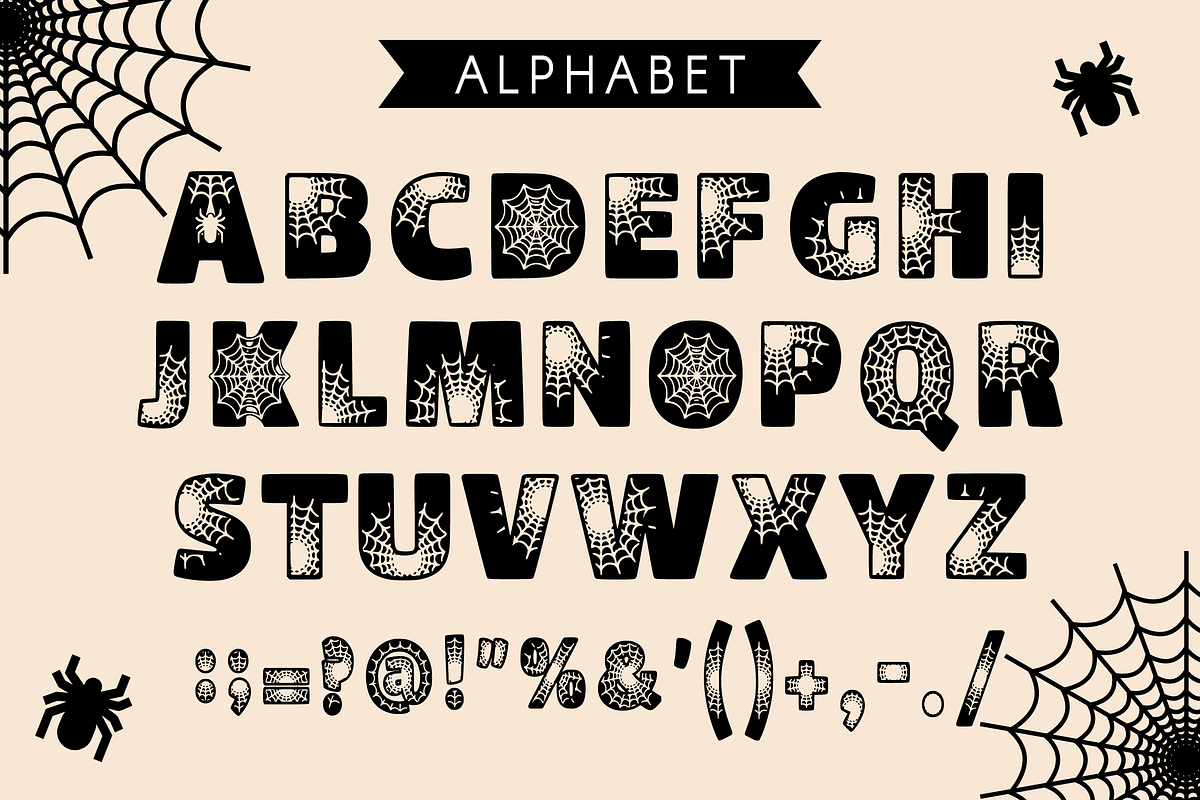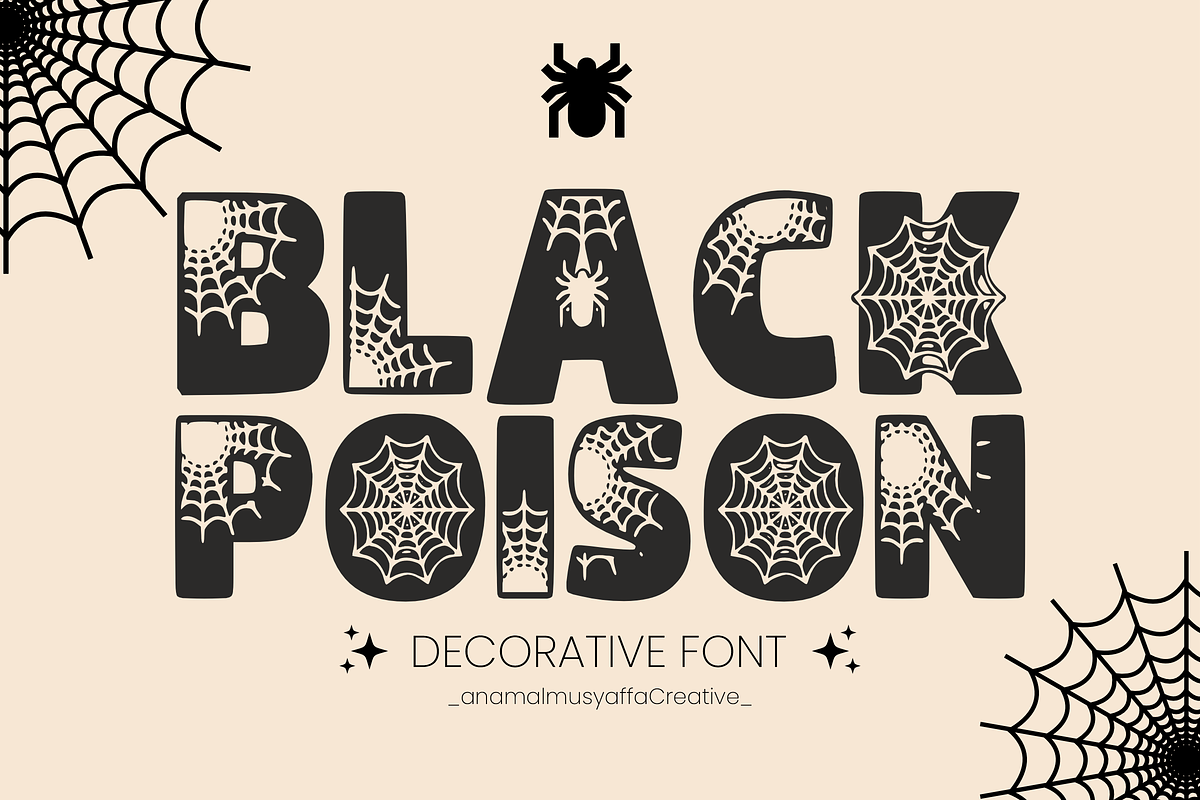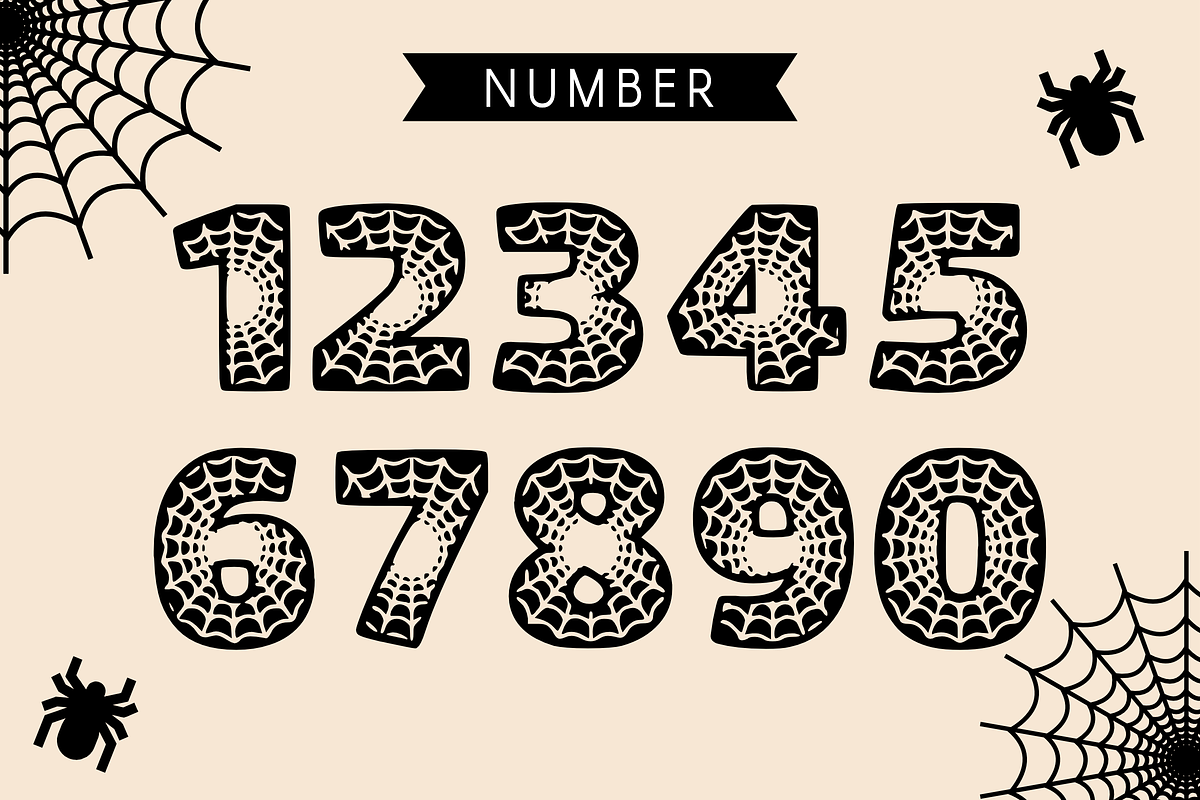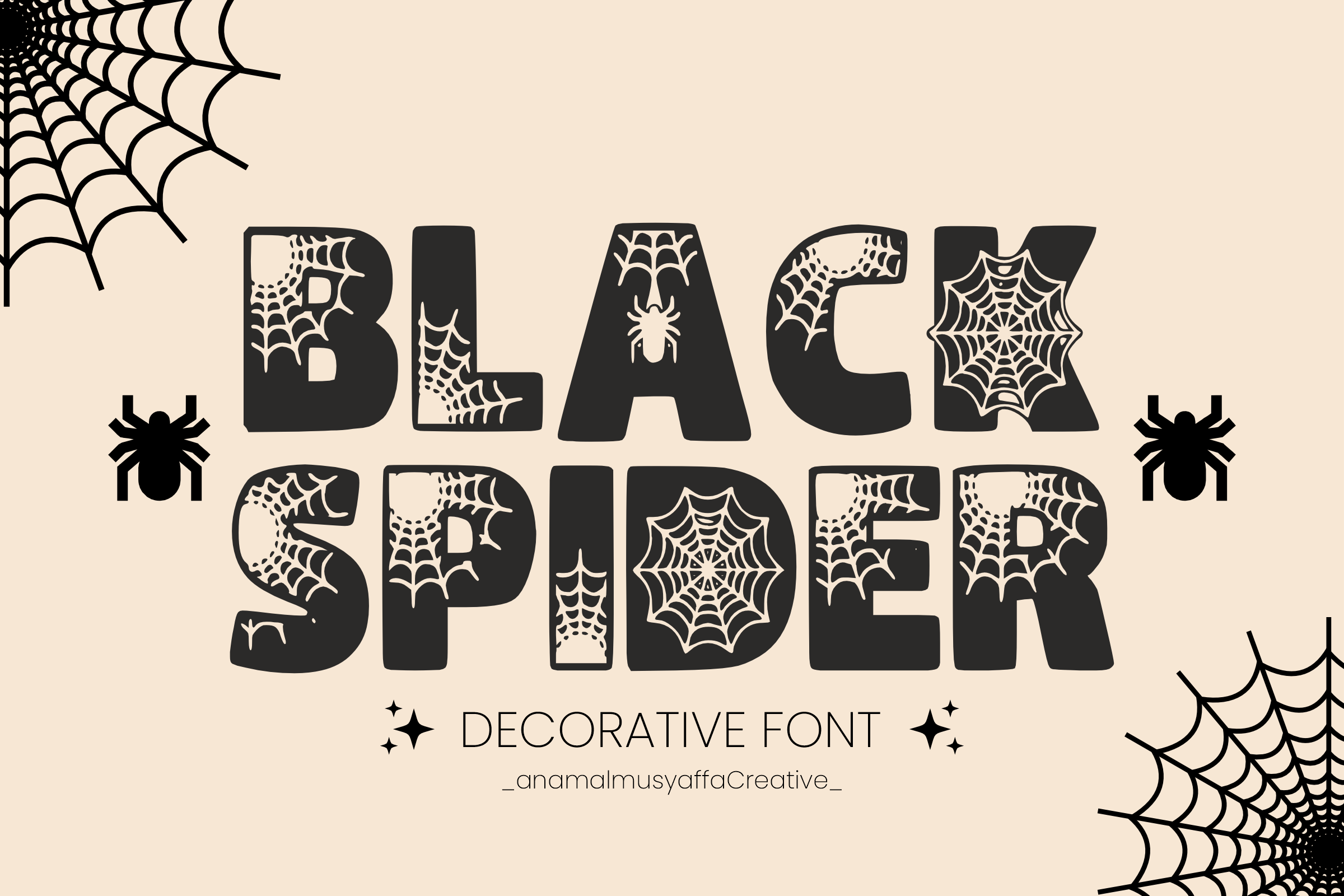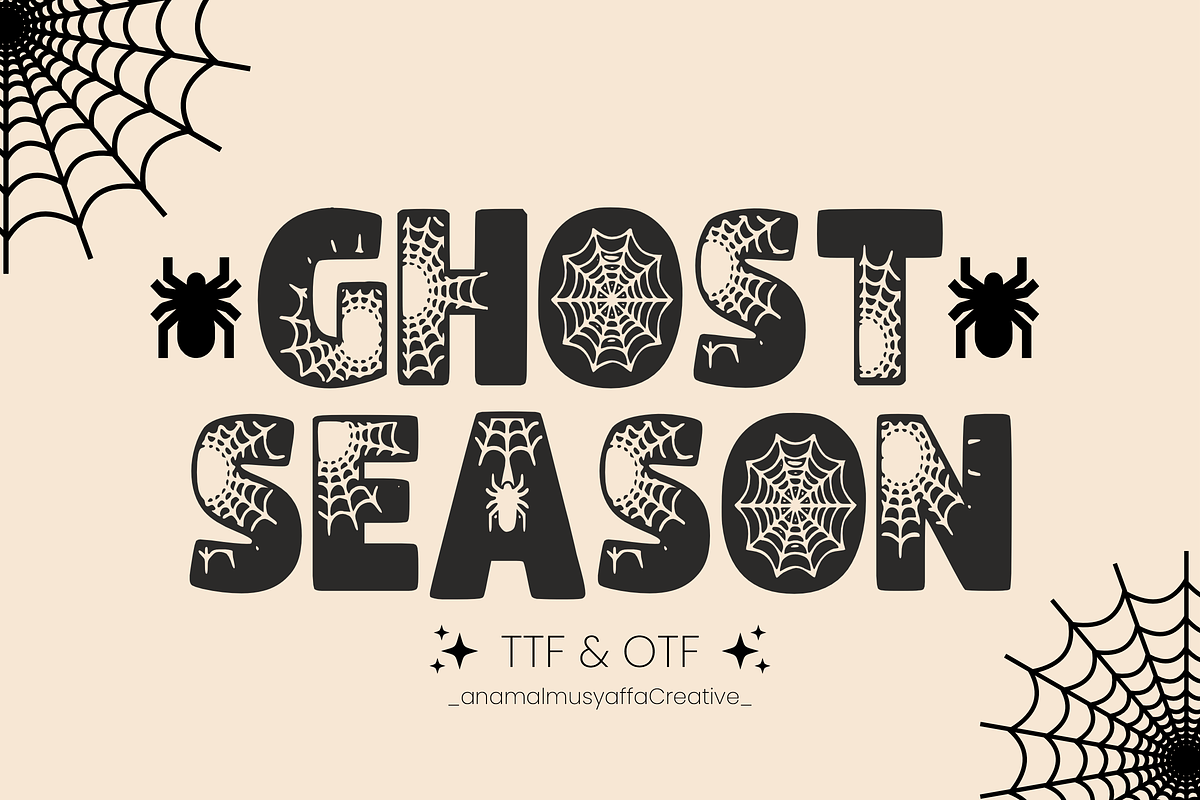
Black Spider - Spider Font Type
Unveiling “Black Spider”, a chilling font, swathed in skeletal cobwebs exuding a hair-raising atmosphere. Expertly tailored for designs requiring a touch of the supernatural or a hint of the macabre, this font brings alive ghostly whispers lurking in the corners of your imagination. Beyond striking a chord with horror enthusiasts, it emerges as a surprisingly versatile typeface, livening up sublimation prints, adding an intriguing twist to everyday mugs, coaxing laughs in comic strips, and more. Discover the phantom realm through your designs with the indelible touch of the “Black Spider” font!